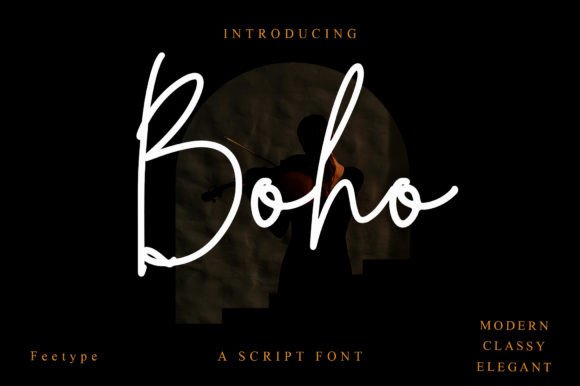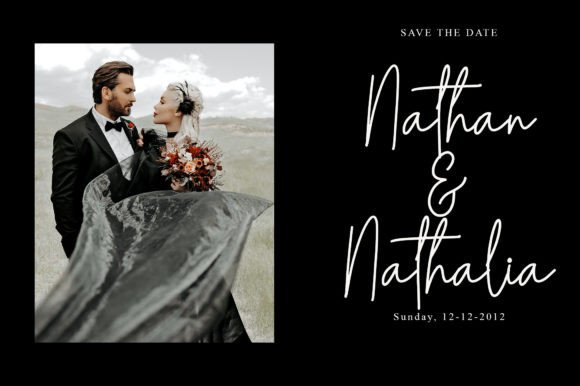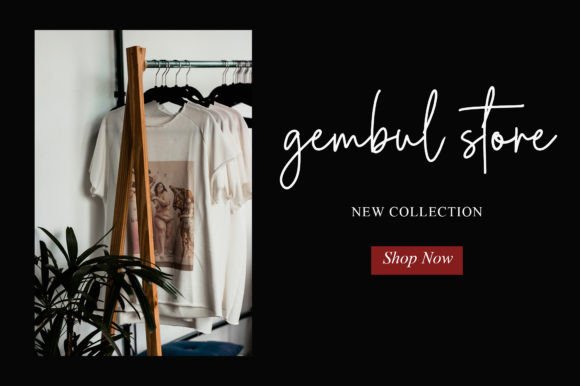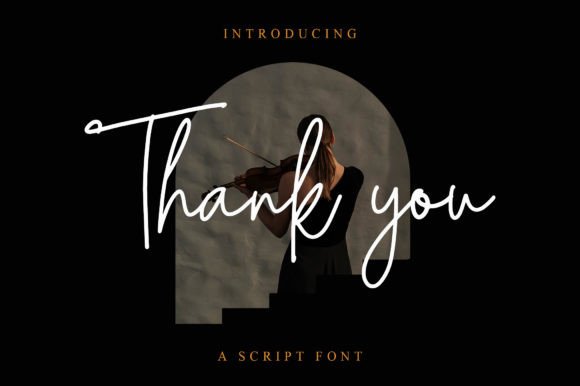
About Boho Font
Introducing “Boho,” a fun and friendly handwritten font that injects a playful charm into any design. With its whimsical and approachable style, this font is crafted to make your design ideas stand out, infusing them with a unique and delightful charm.
The friendly and fun nature of “Boho” makes it an excellent choice for a wide range of designs where a lighthearted and casual vibe is desired. From social media graphics to greeting cards, this font adds a touch of joy and creativity.
Get inspired by the distinct charm of “Boho” as you explore its creative possibilities. Whether you’re working on invitations, posters, product packaging, or any other design project, this font becomes a playful tool to express your ideas with a dose of personality.
The handwritten and organic style of “Boho” contributes to its authentic and approachable feel. It’s not just a font; it’s an invitation to infuse your designs with a sense of fun and friendliness, creating a connection with your audience.
Let “Boho” be the creative companion that transforms your design ideas into lovely and standout creations. Whether you’re looking to add a playful touch or create a design that radiates positivity, this font is ready to bring a unique and delightful charm to your projects.